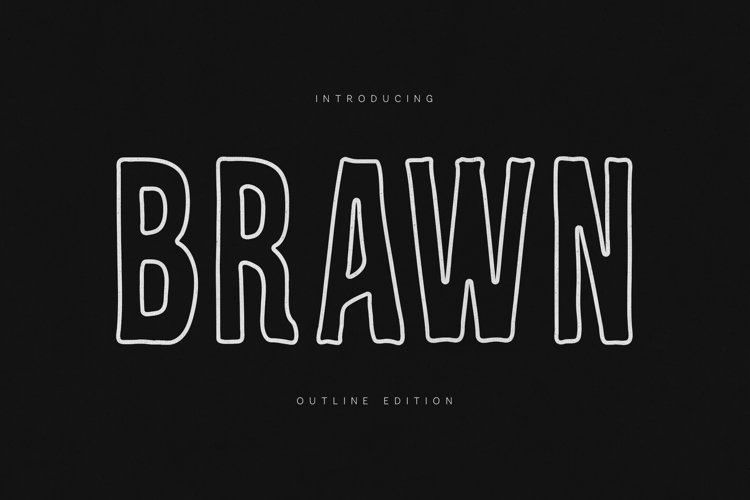
Brawn Outline Font Hand Drawn Outline Display Typeface
Introducing Brawn Outline, a playful hand-drawn outline font designed to bring personality, creativity, and warmth to your projects. Featuring organic letterforms, imperfect handcrafted details, and a friendly character, this display typeface is perfect for branding, logos, packaging, posters, children's products, social media graphics, editorial design, and marketing materials.
Its unique outlined construction creates a light, airy appearance while maintaining strong readability. The naturally irregular shapes give every word a handcrafted feel, making Brawn Outline ideal for brands and designers looking for an authentic, approachable, and memorable visual style.
Whether you're designing playful logos, eye-catching headlines, product packaging, greeting cards, book covers, apparel graphics, or modern branding projects, Brawn Outline adds charm and originality to every composition.
- Hand Drawn Outline Style